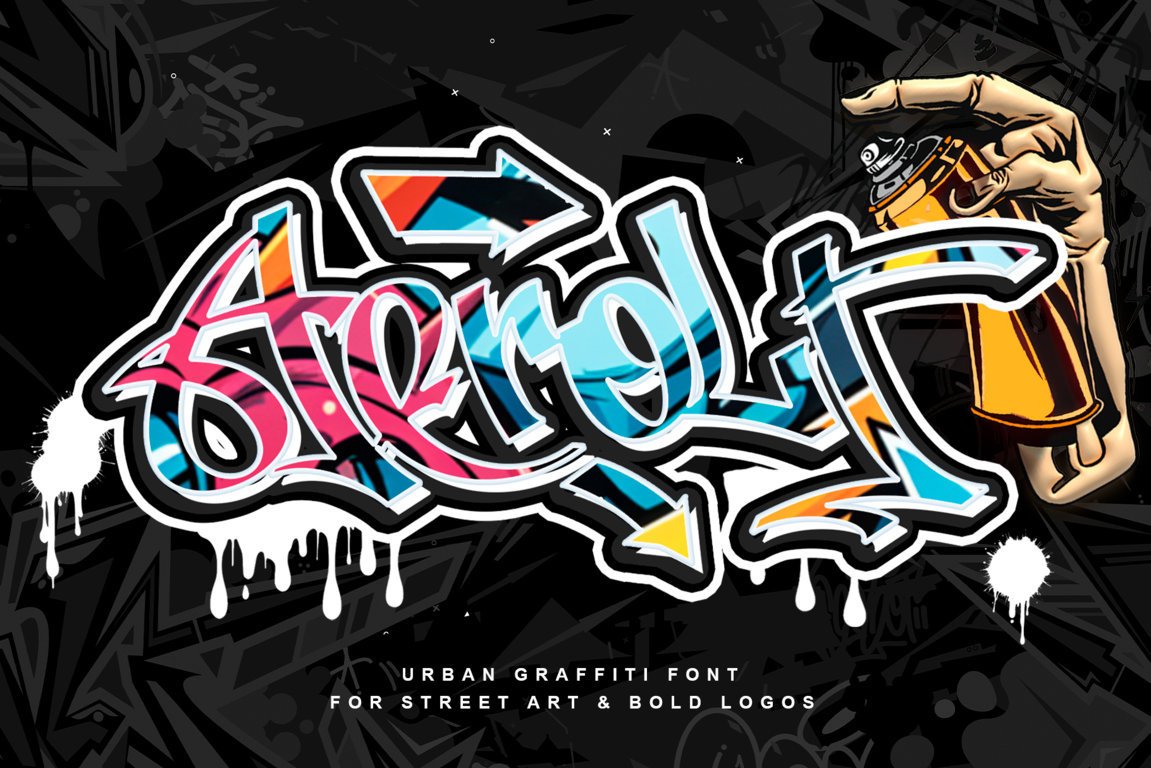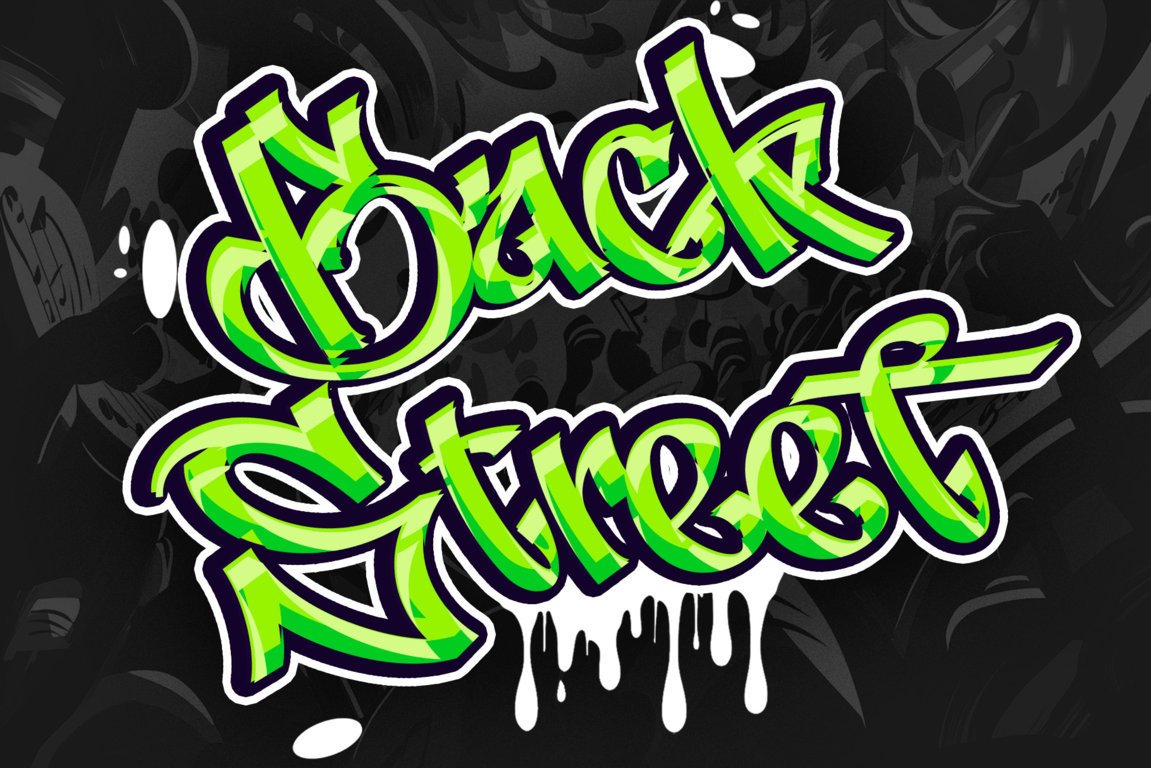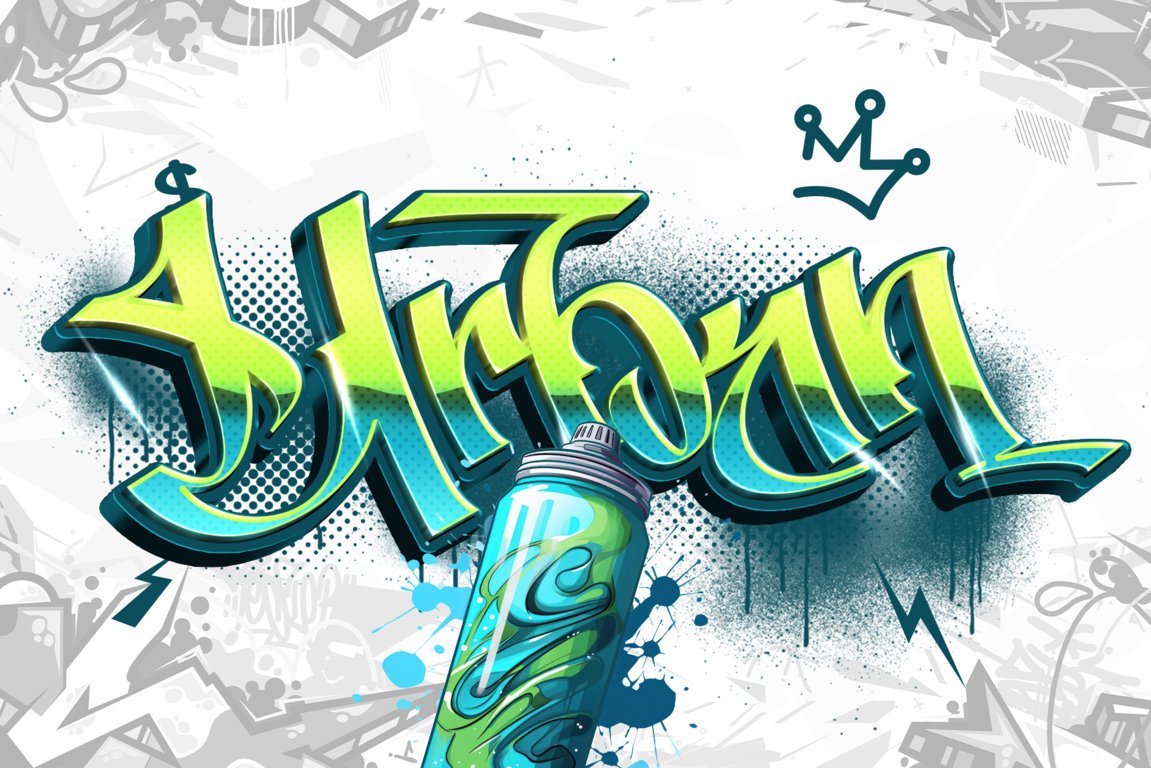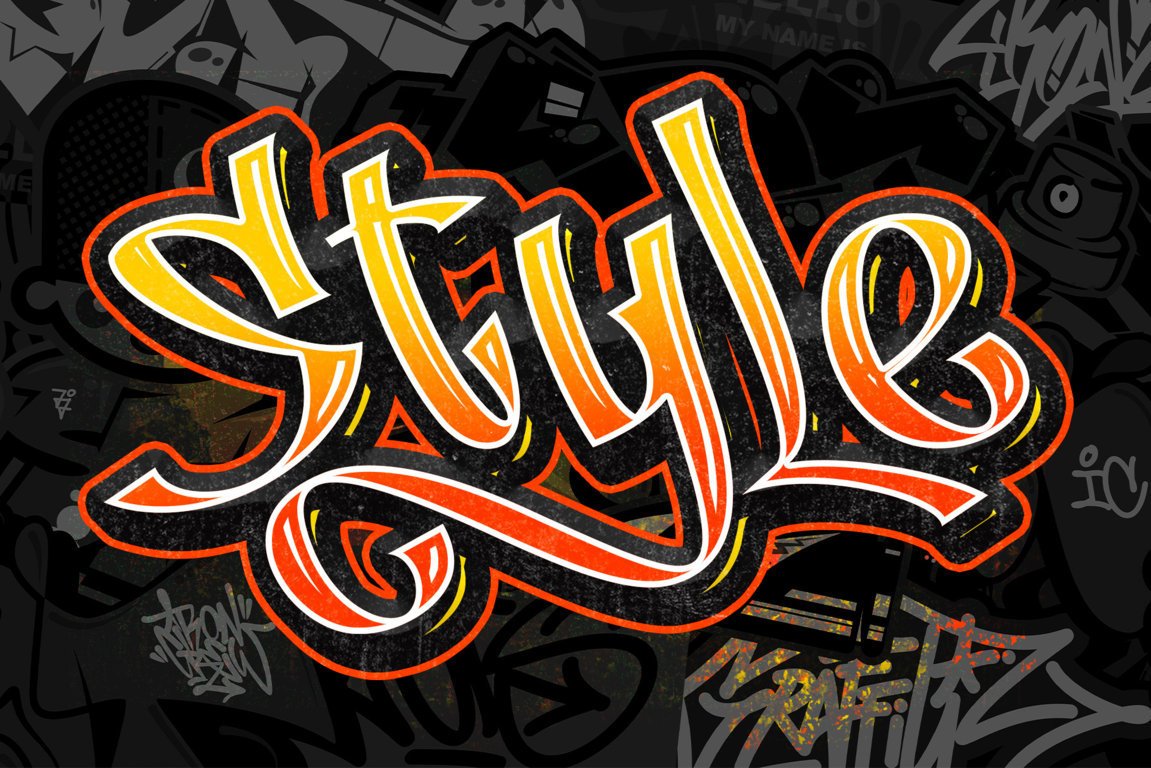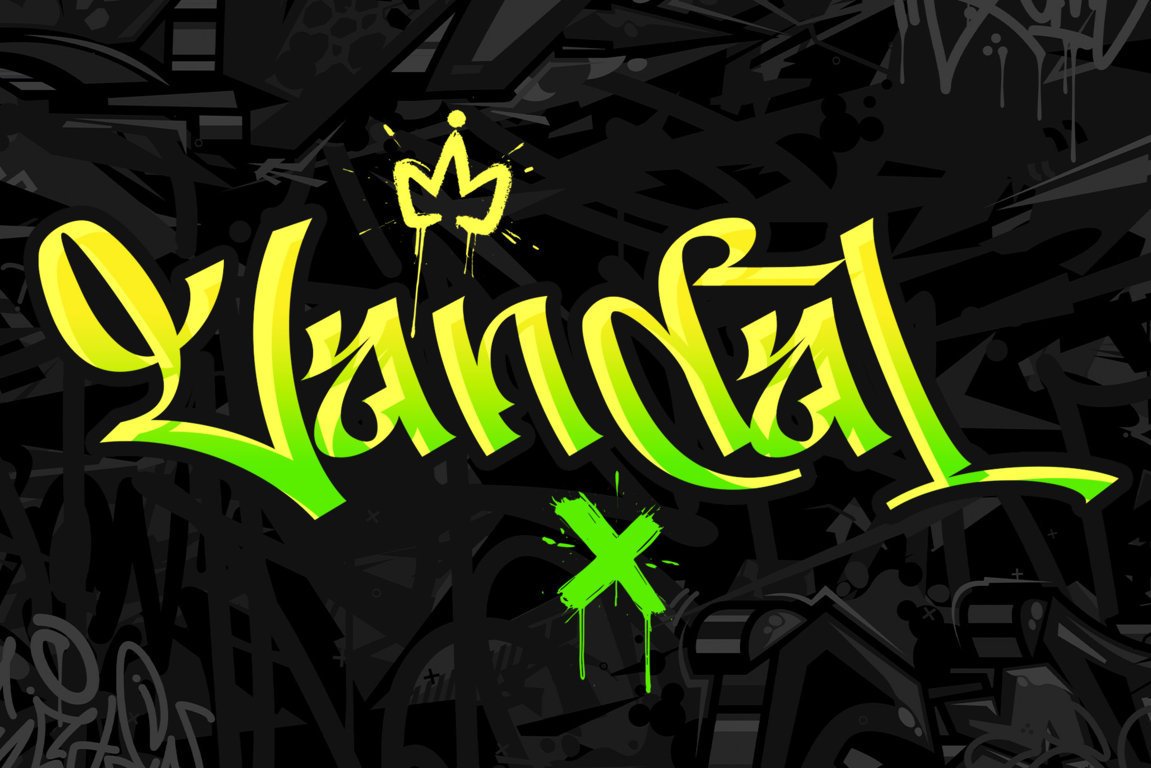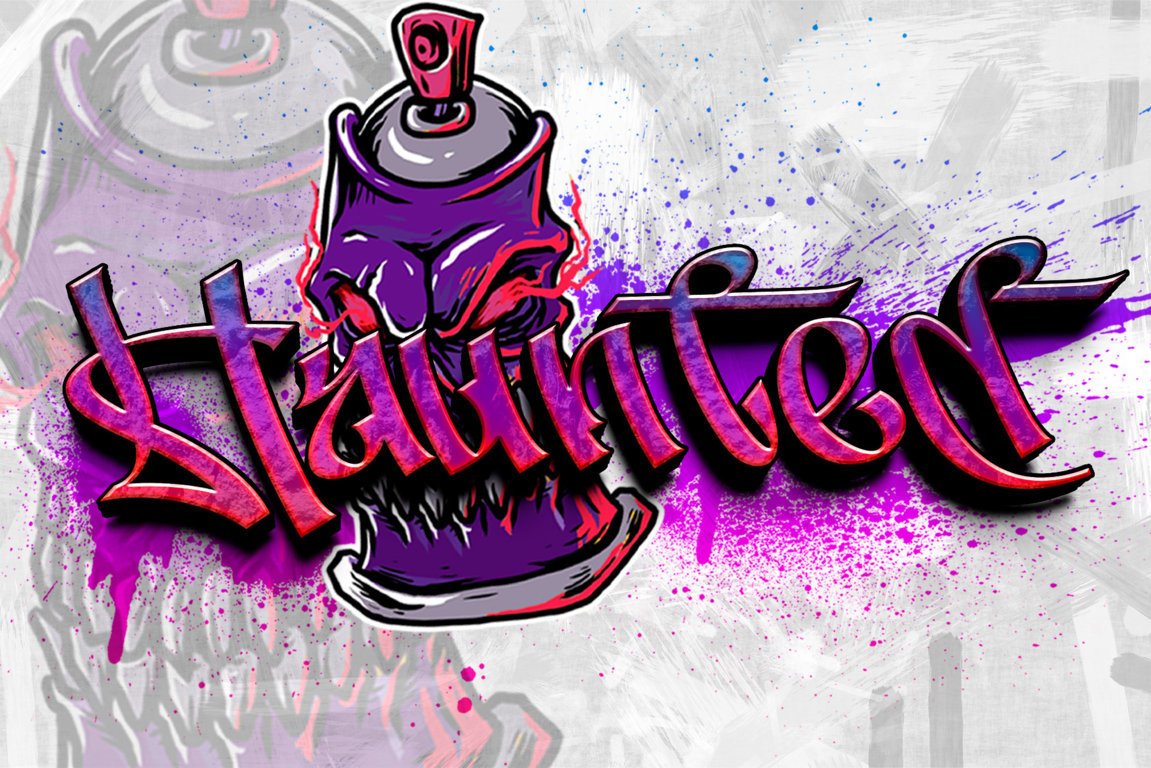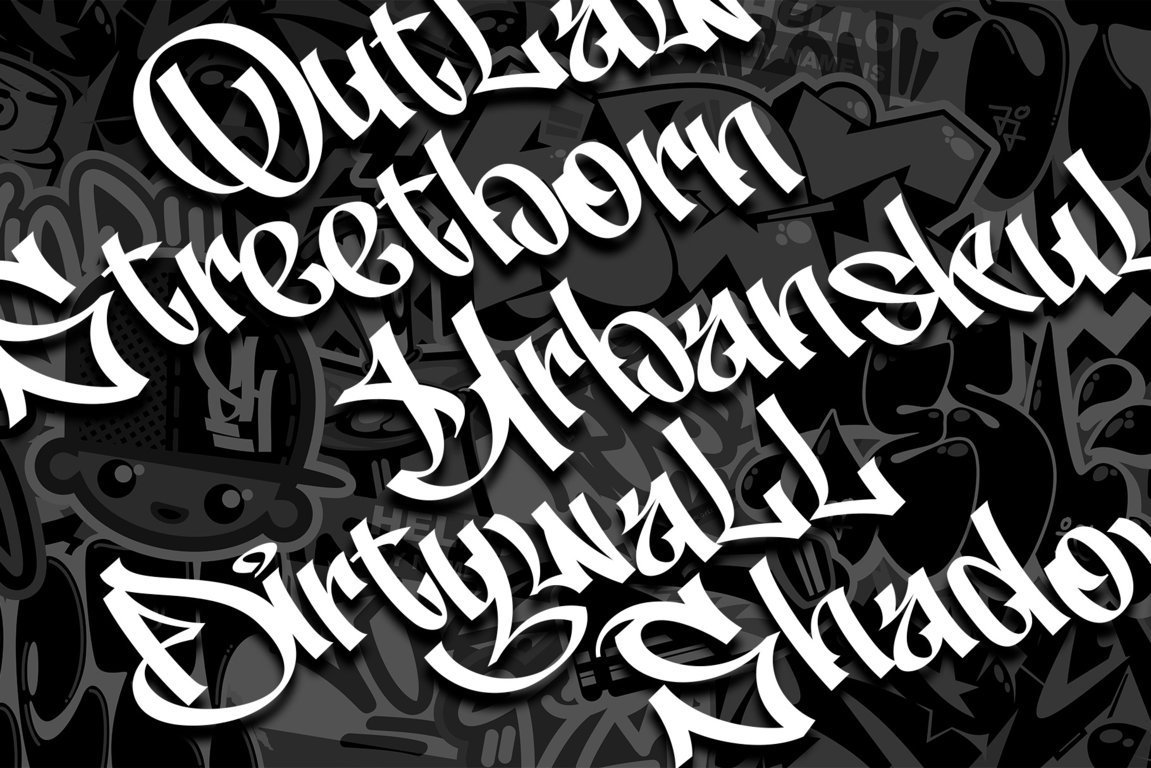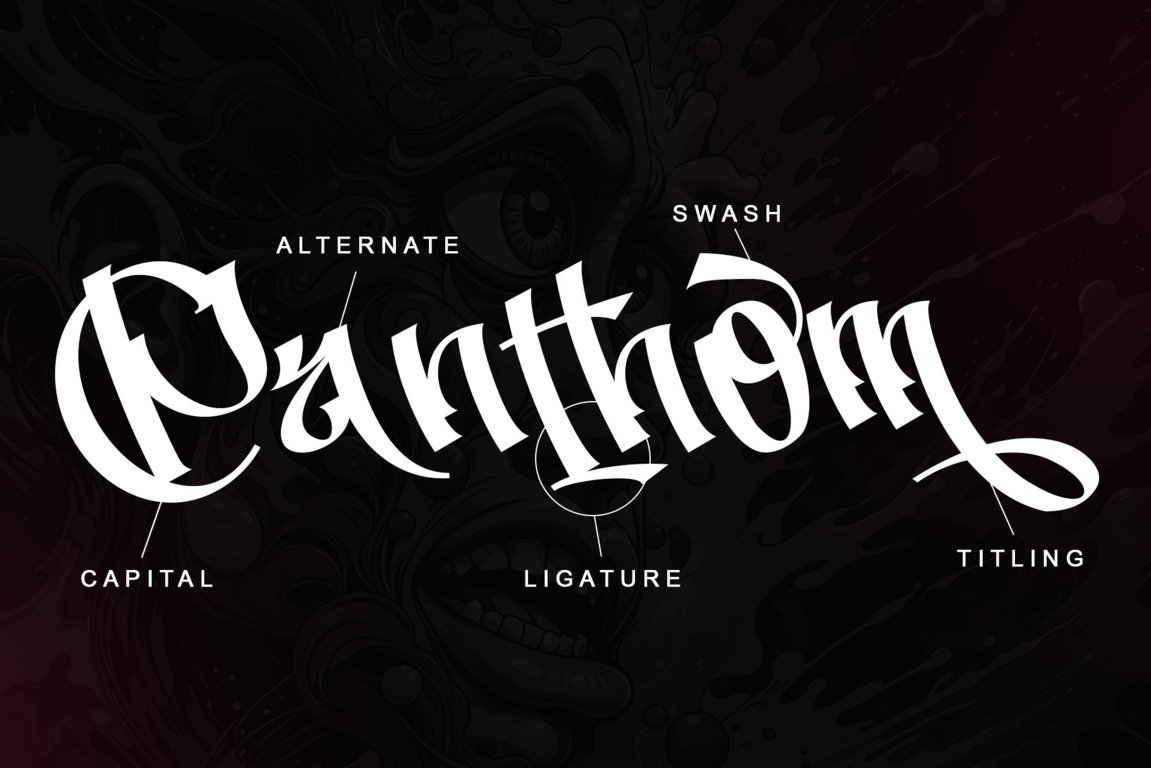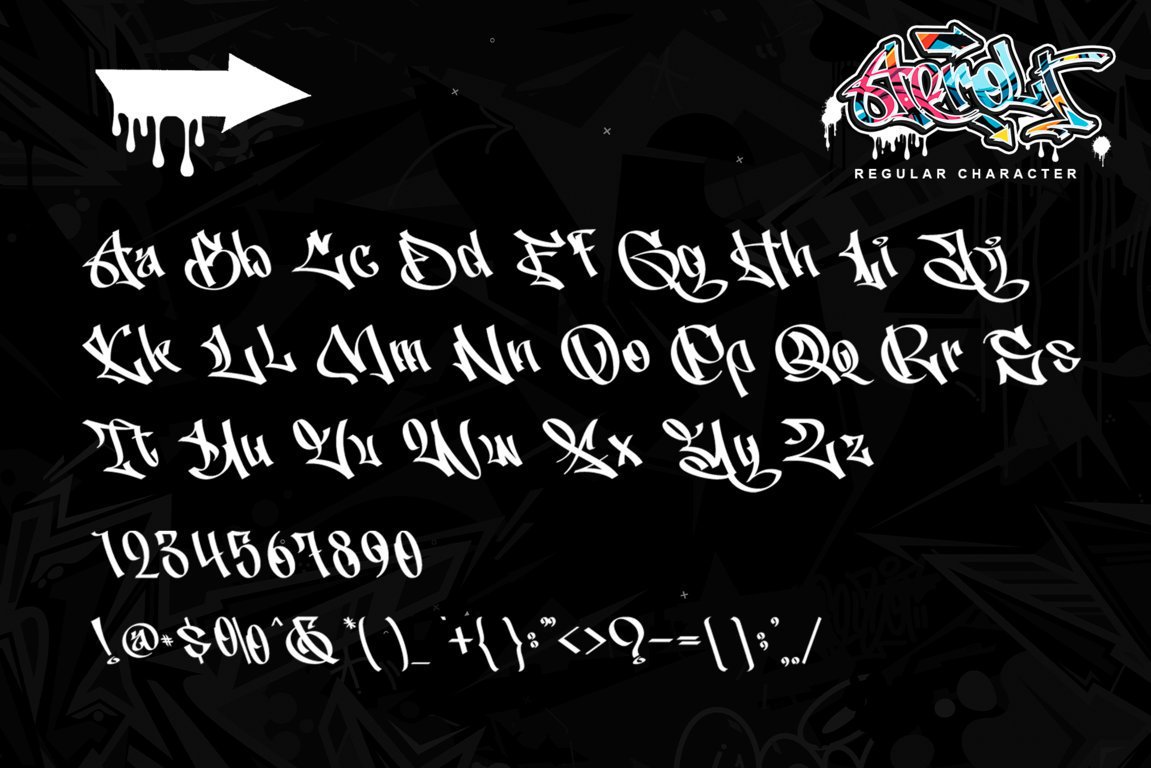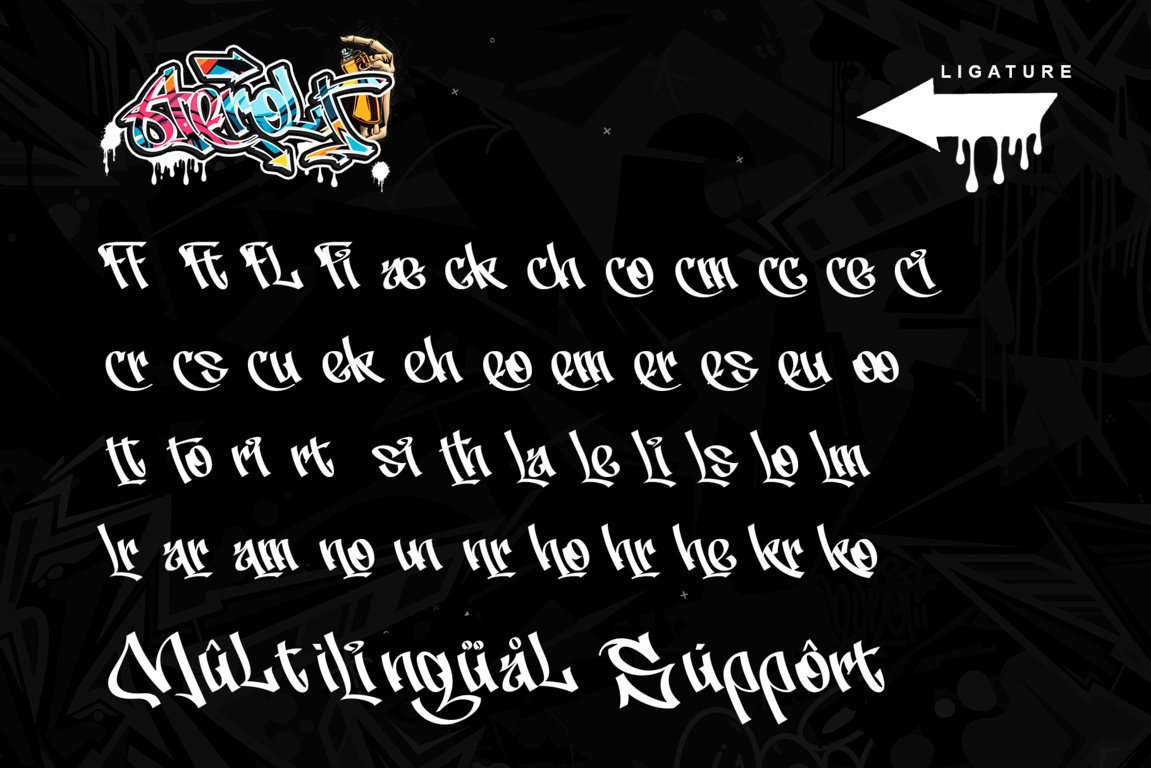
Aerolt is a bold graffiti-inspired font created to deliver raw street energy, rebellious attitude, and high-impact visual expression. Inspired by authentic urban graffiti culture, Aerolt features dynamic strokes, expressive letterforms, and a handcrafted street style that brings movement, confidence, and personality to every word.
Perfect for street art designs, music covers, urban branding, apparel, posters, YouTube thumbnails, and bold social media graphics, Aerolt transforms typography into powerful visual statements. This font is designed for creatives who want their work to stand out, break conventions, and speak loudly in modern visual culture.
Fully PUA encoded, Aerolt provides easy access to stylistic alternates, swashes, ligatures, and unique glyphs—giving you complete creative freedom without complicated workflows. Whether for digital or print projects, Aerolt delivers authentic graffiti vibes with a modern, professional finish.
Font Features
Multilingual support (ä ö ü Ä Ö Ü ß ¿ ¡)
Uppercase & lowercase letters
Numerals & punctuation
Alternates, swashes, titling & ligatures
Fully PUA encoded